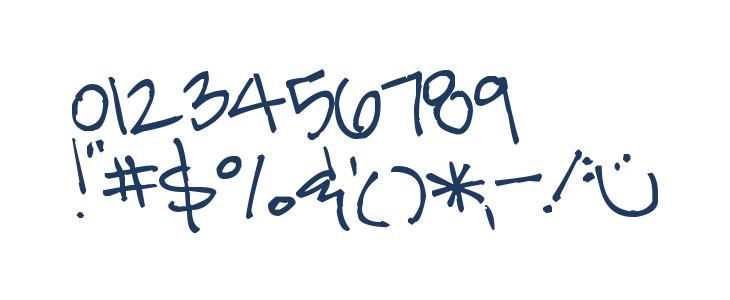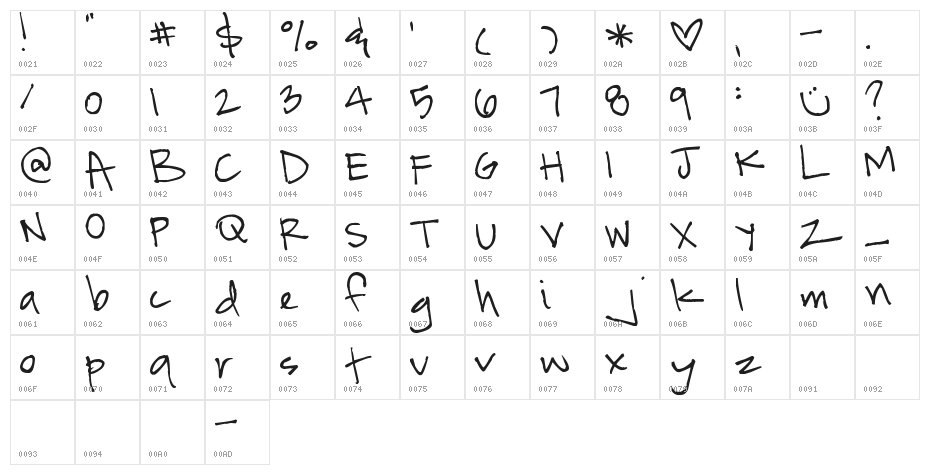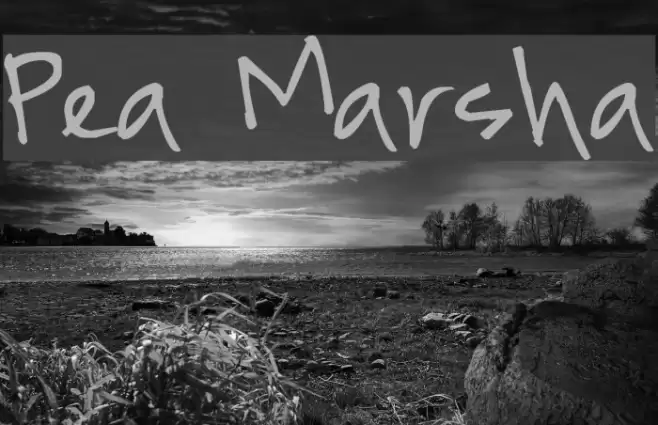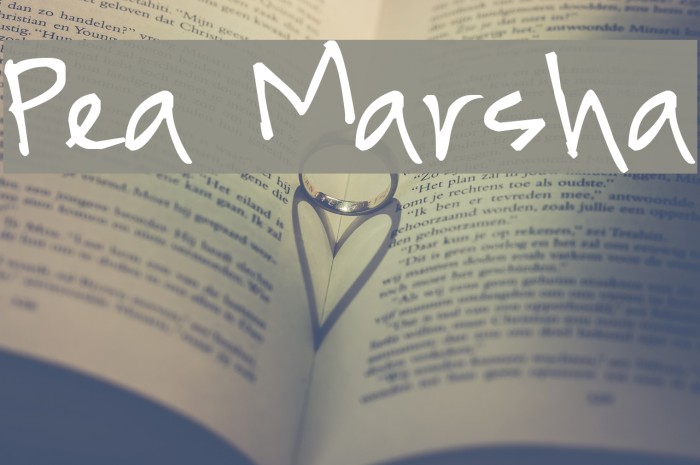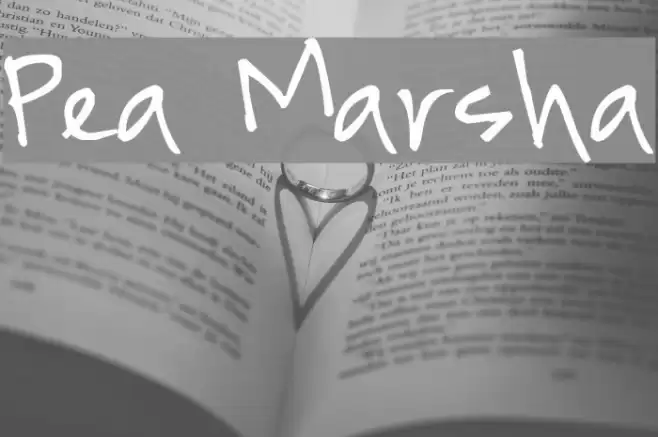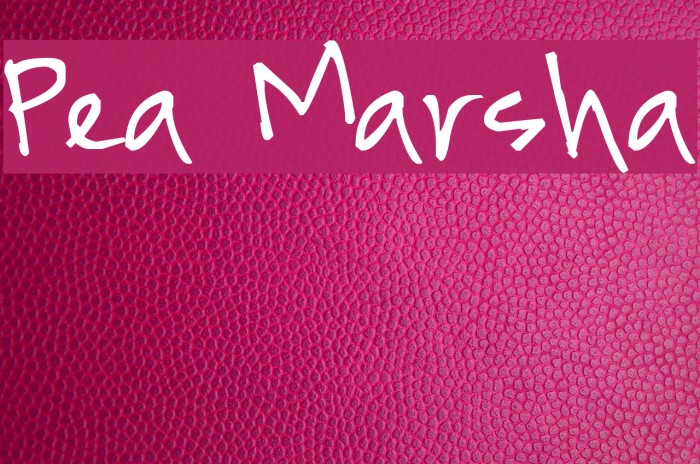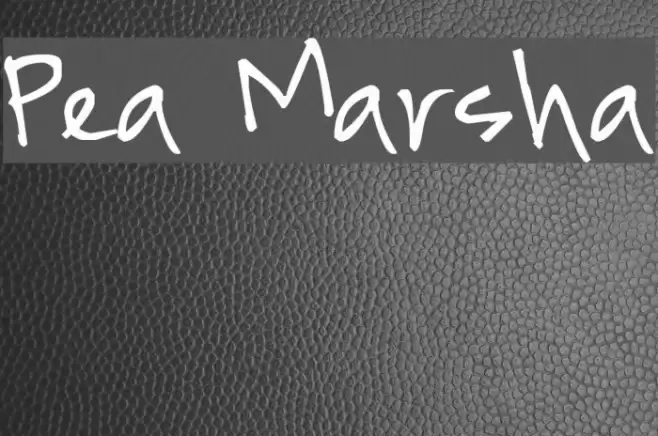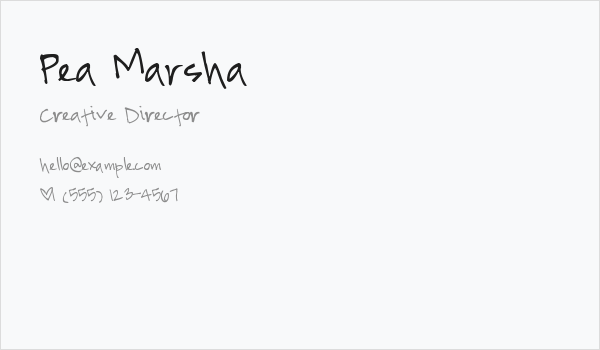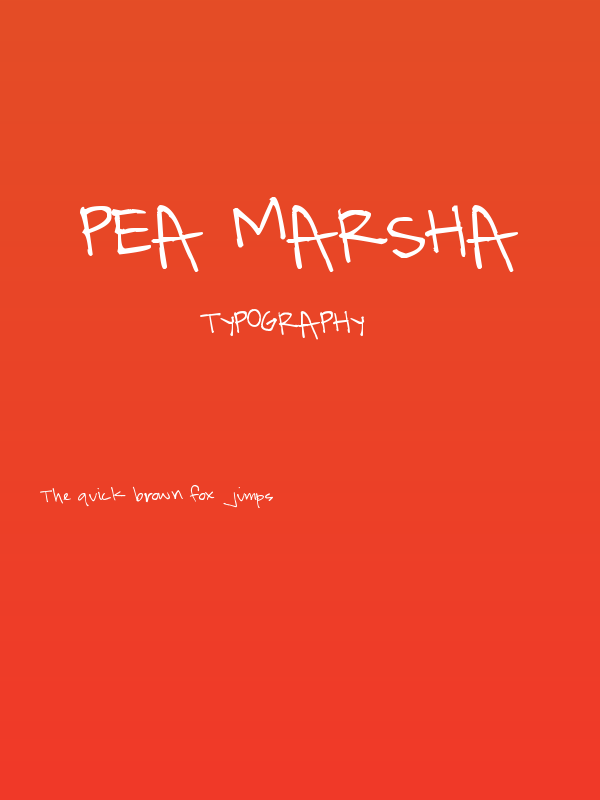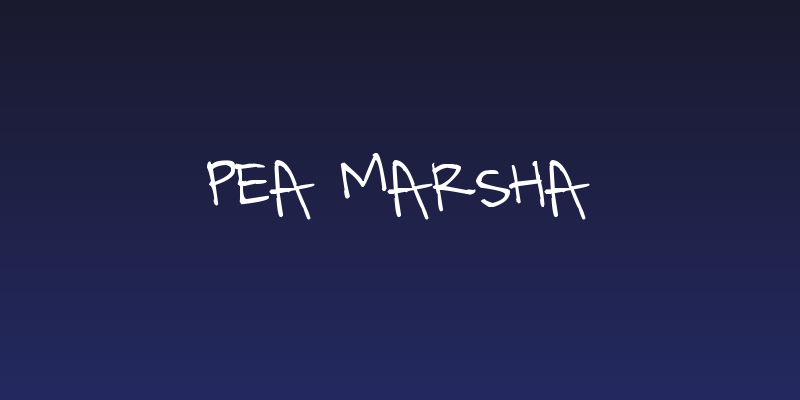
This font exhibits a playful and casual handwritten style, characterized by its irregular strokes and organic flow. The letters are slightly slanted, giving a dynamic and informal appearance. The uppercase and lowercase letters maintain a consistent style, with rounded edges and varied line thickness that adds to the handwritten feel. The numbers and special characters follow the same aesthetic, ensuring a cohesive look across all glyphs. This font's informal and friendly nature makes it suitable for projects that require a personal touch.
| Use Case | Logos, Headlines, Informal text |
| Proposed Projects | Ideal for greeting cards, personal notes, informal invitations, and creative projects that require a personal touch. |